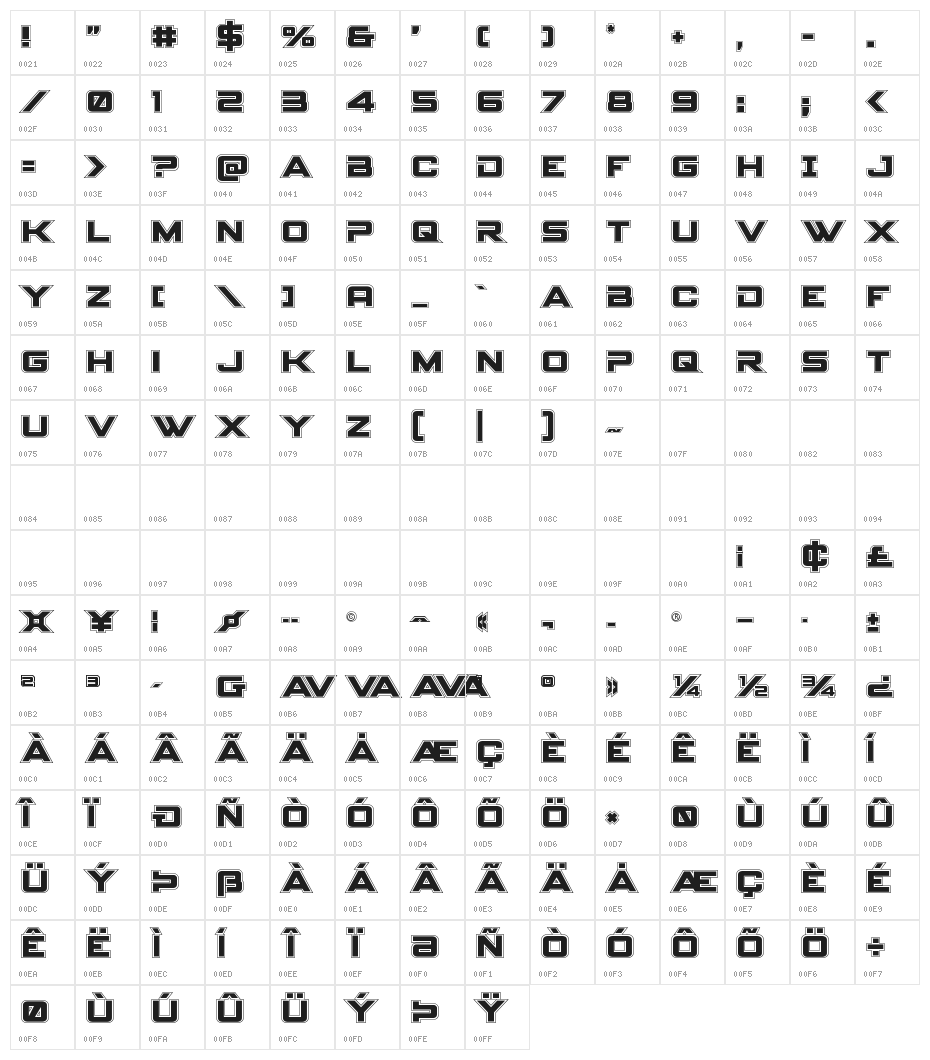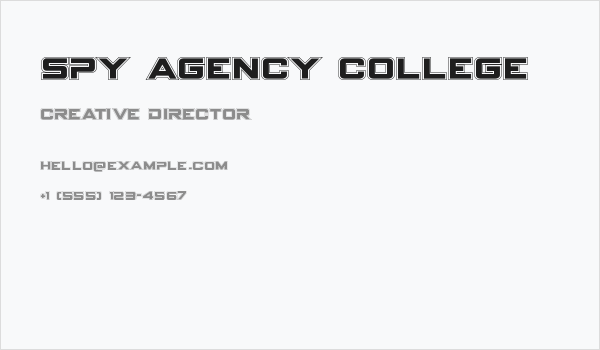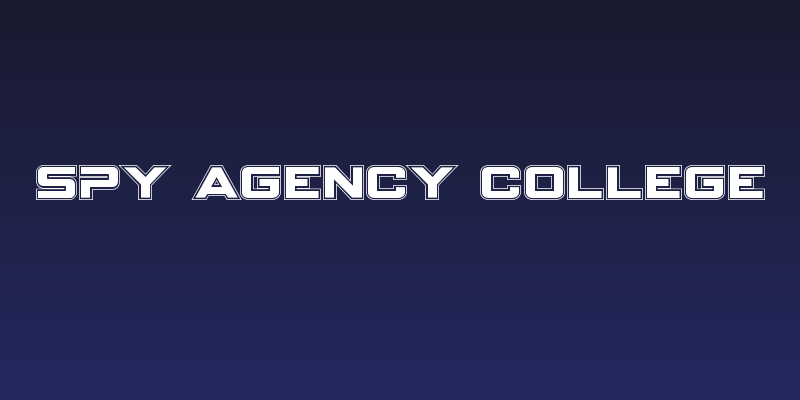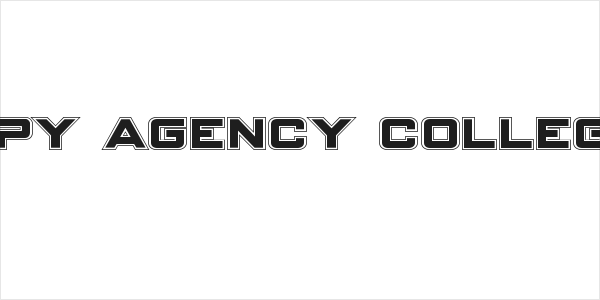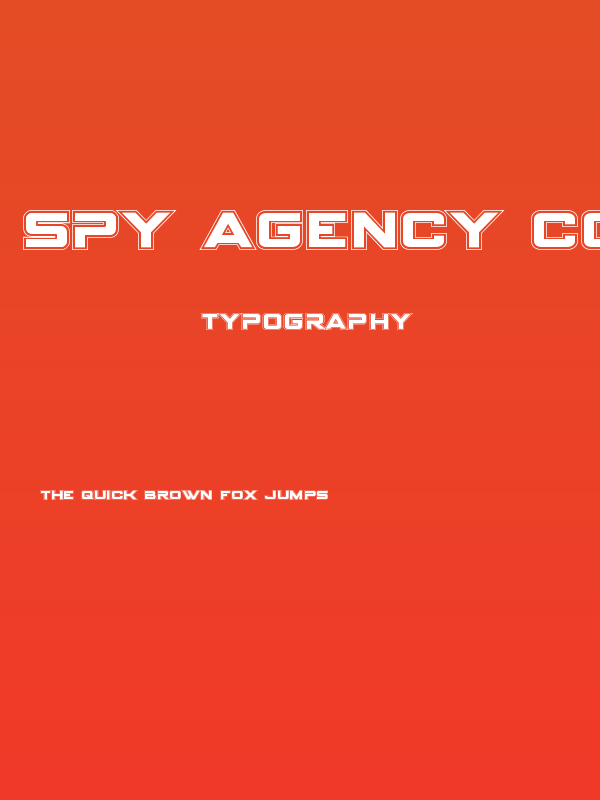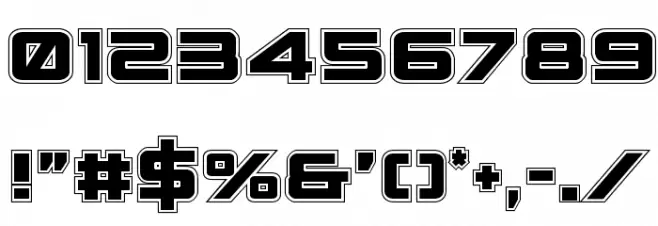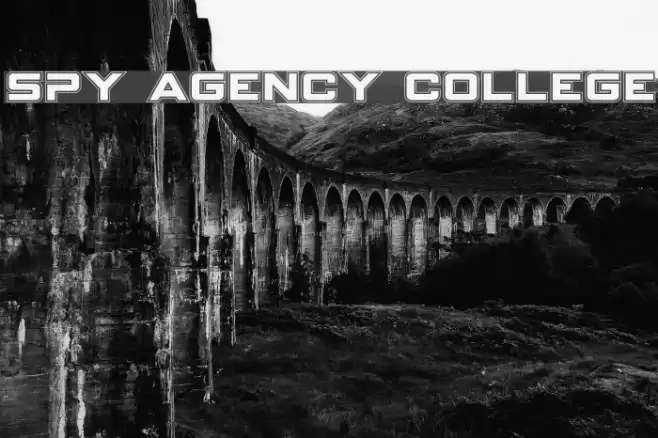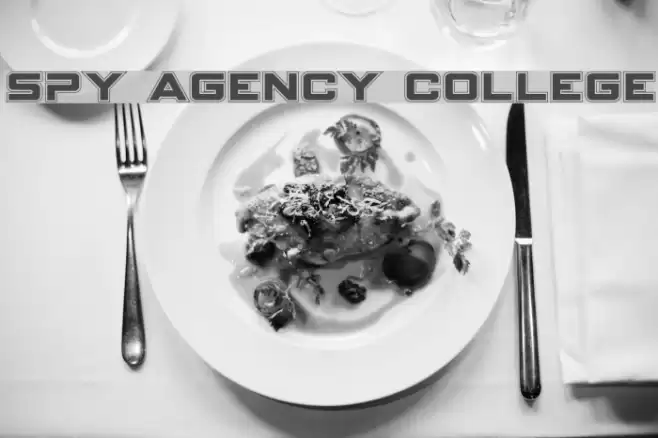
Spy Agency College Font
Spy Agency College Description
This font features a bold, geometric design with a strong, impactful presence. The characters are outlined with a thick border, creating a striking contrast between the inner and outer sections. The uppercase letters are uniform in height, with sharp angles and clean lines that convey a sense of modernity and strength. The numerals and special characters maintain this bold, structured style, ensuring consistency across all elements. This font is ideal for projects that require a commanding and authoritative visual impact.
| Use Case | Logos, Headlines, Posters |
| Proposed Projects | Ideal for branding, posters, sports team logos, and any design needing a bold statement. |